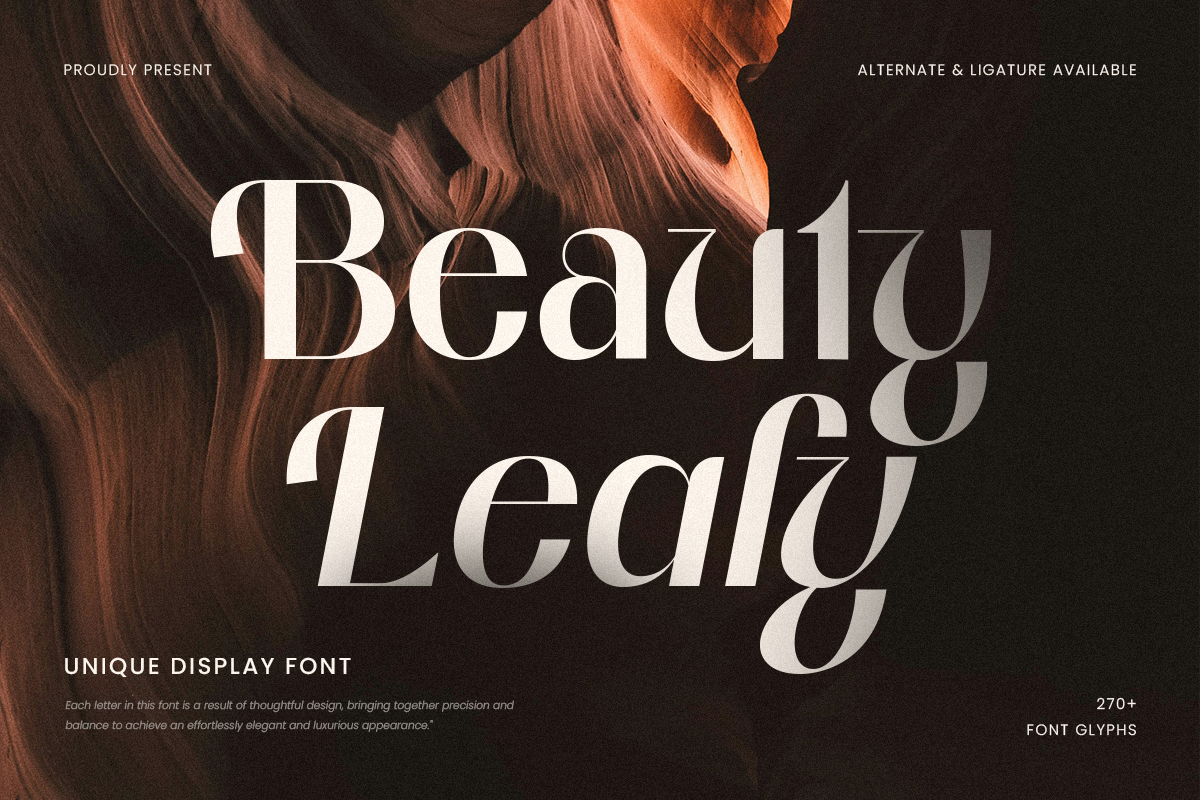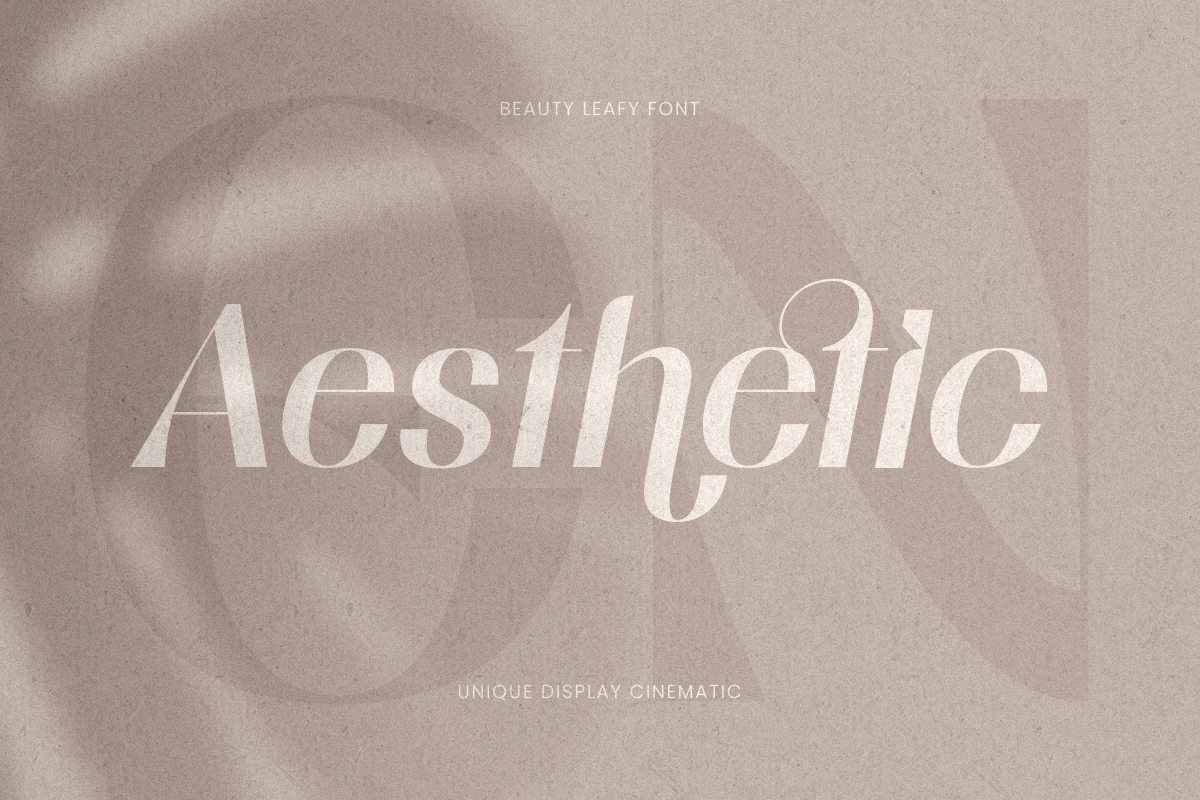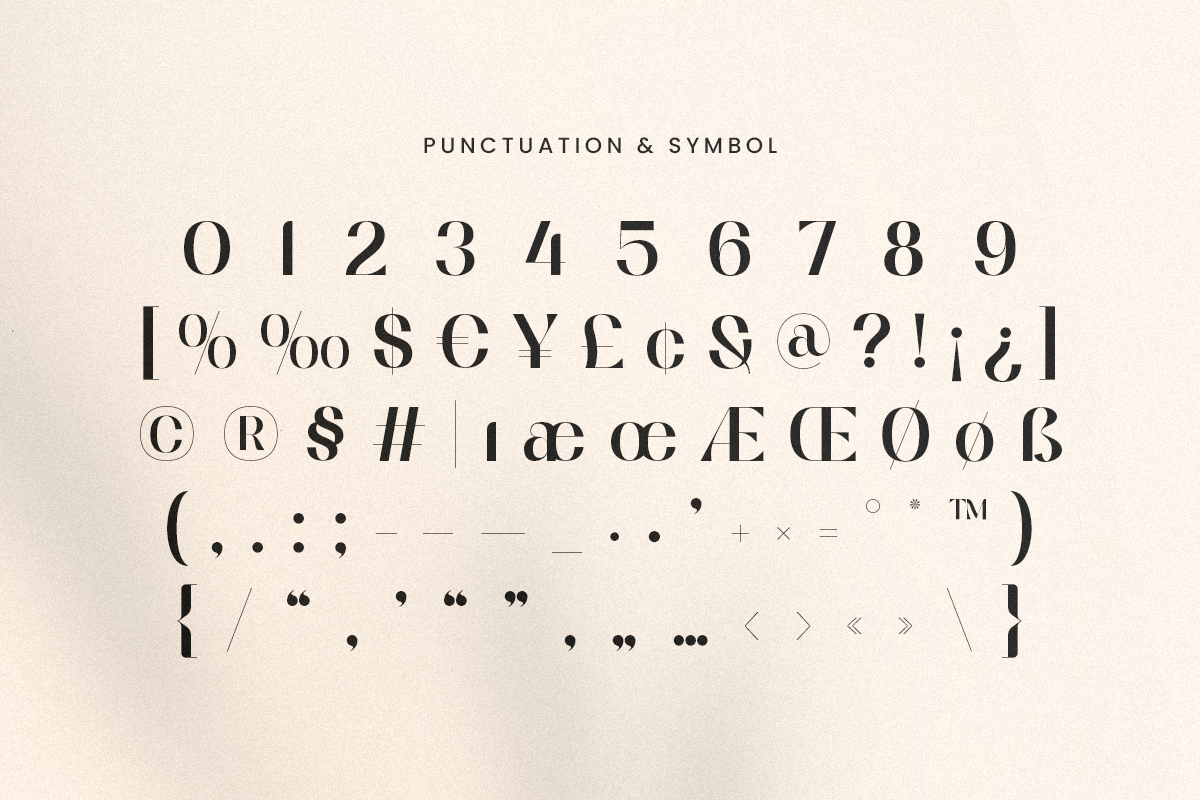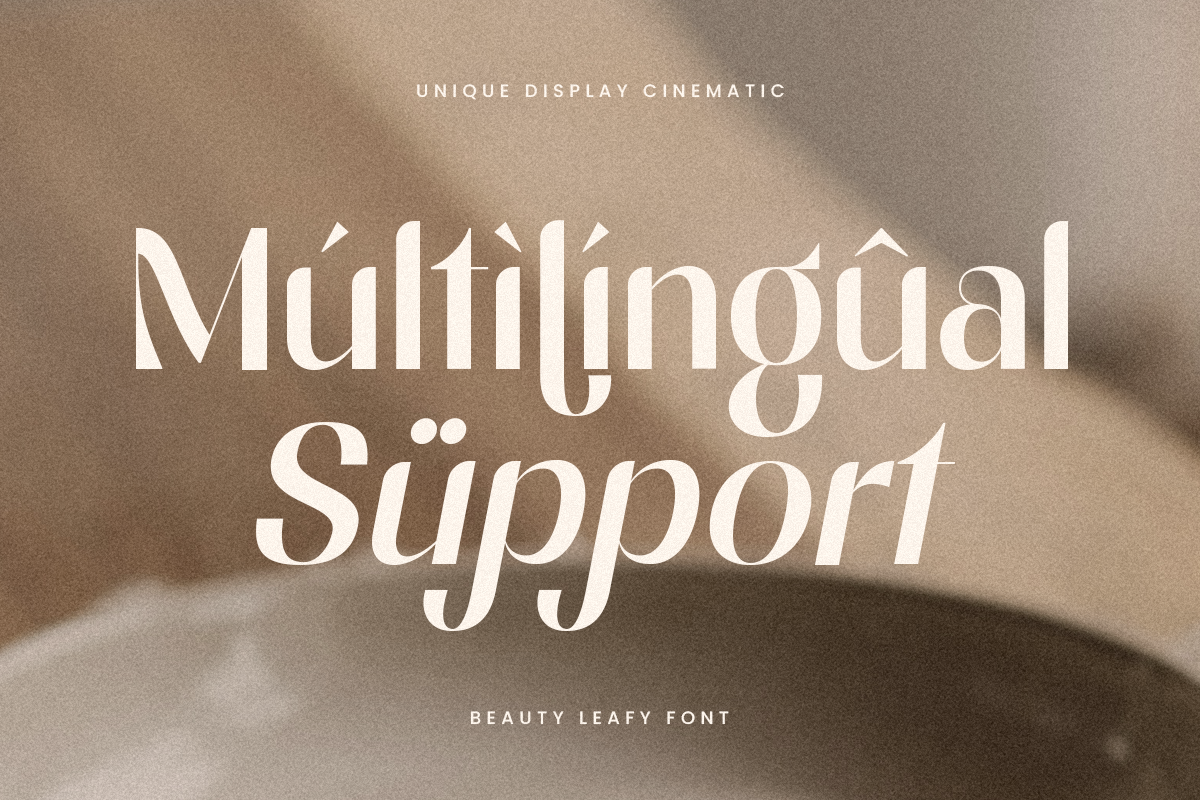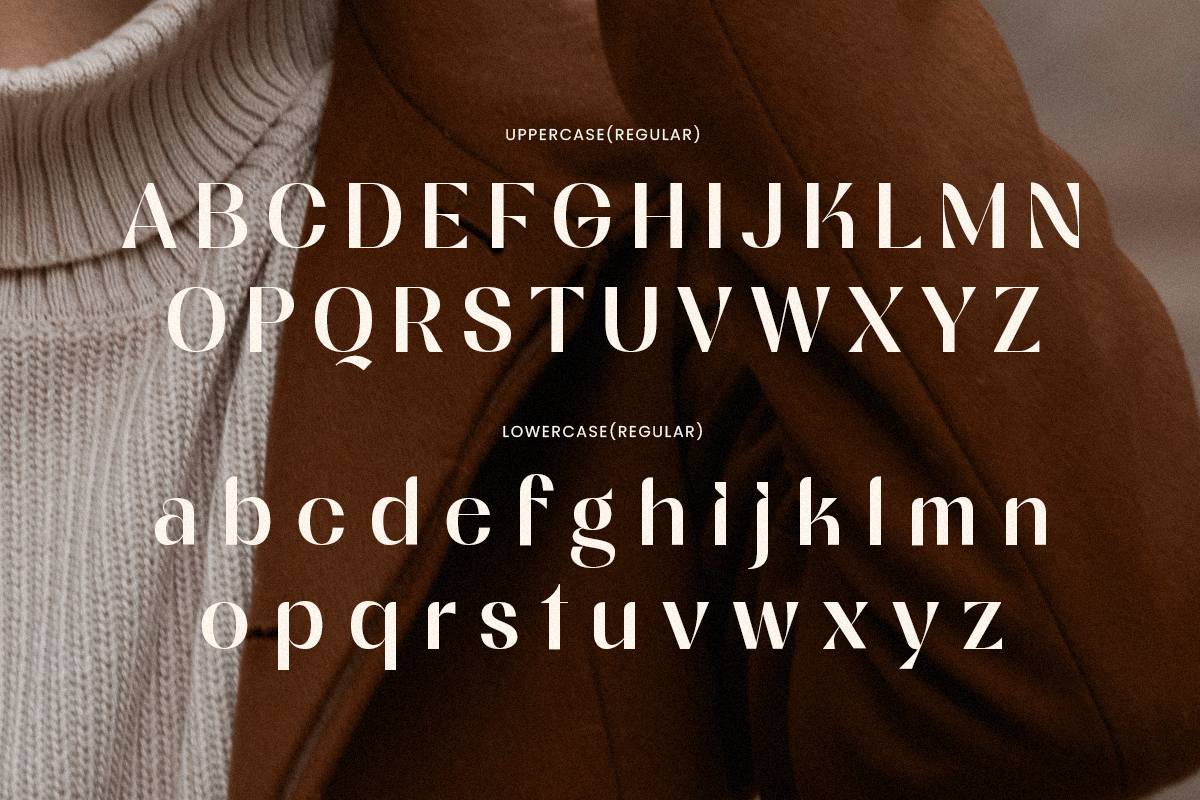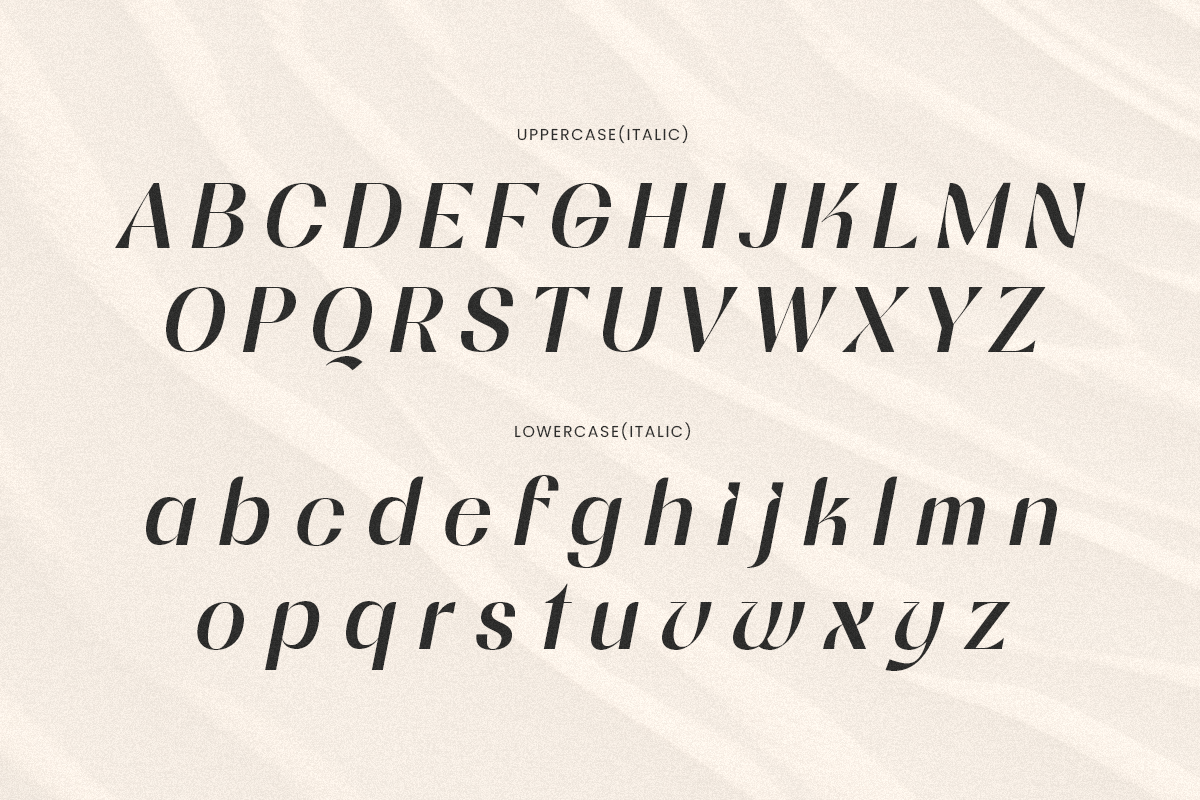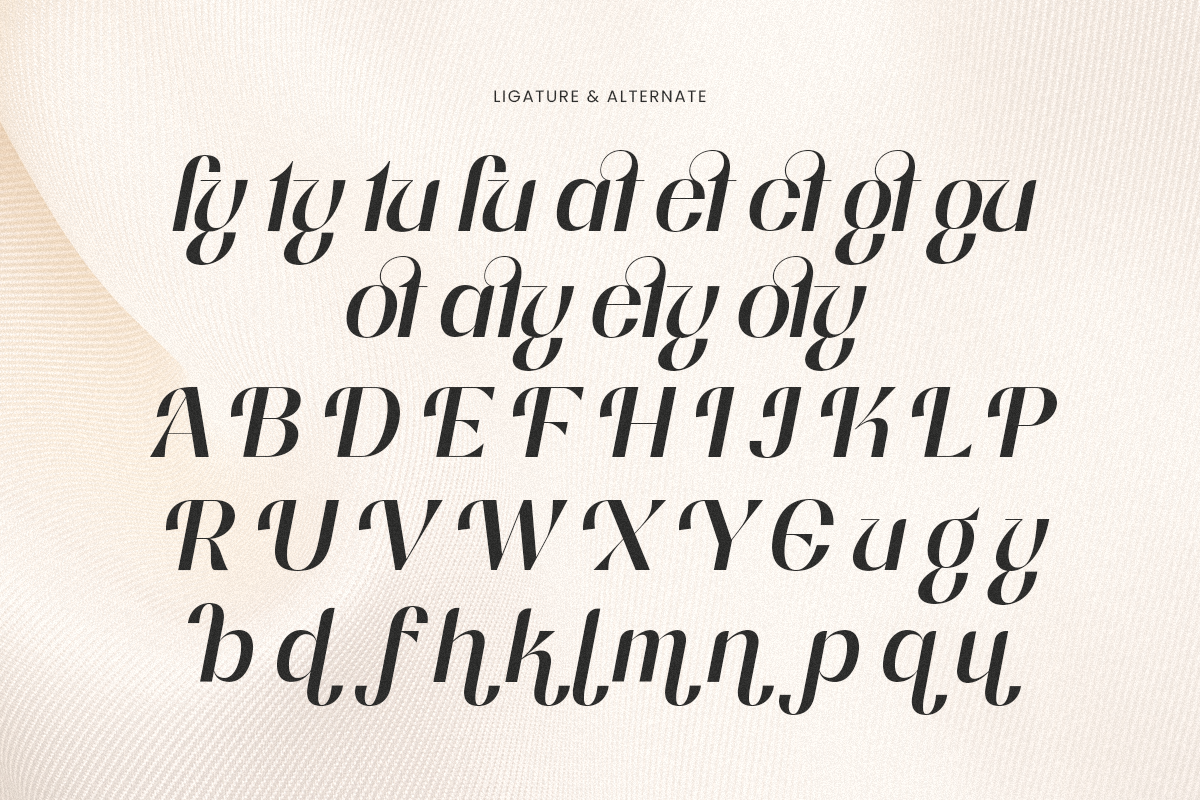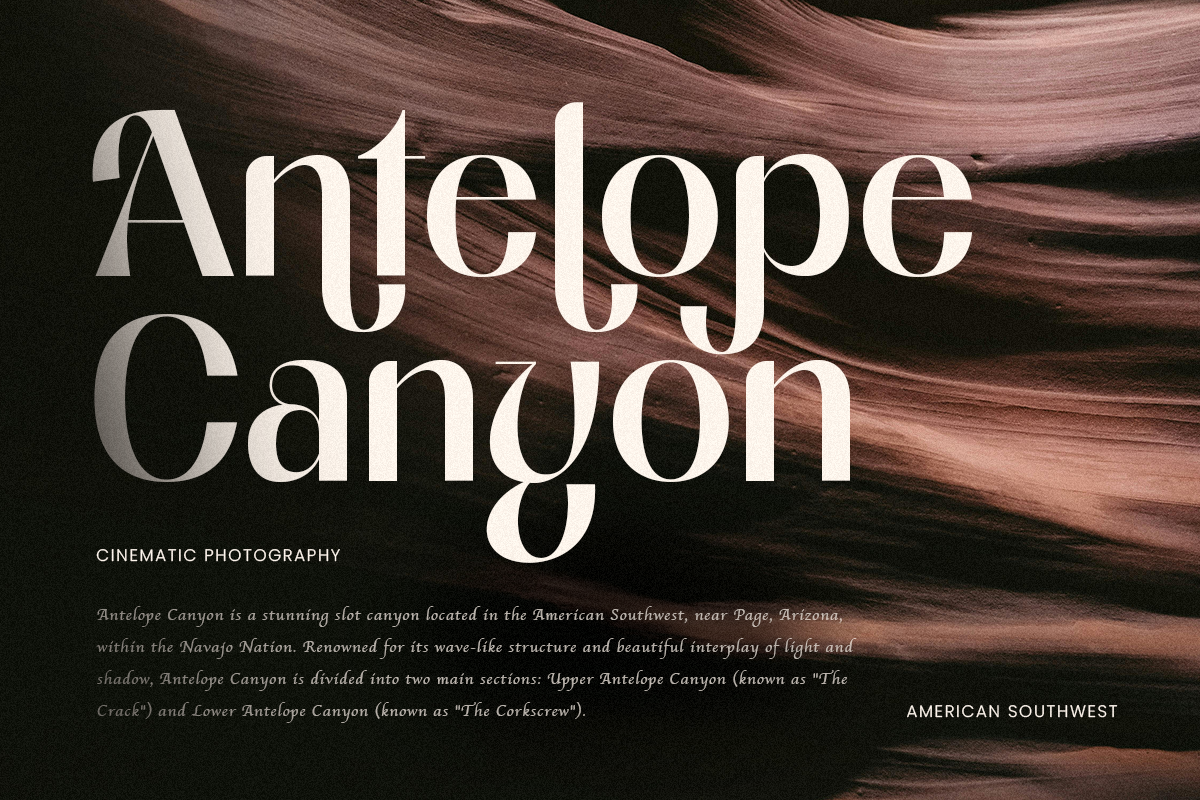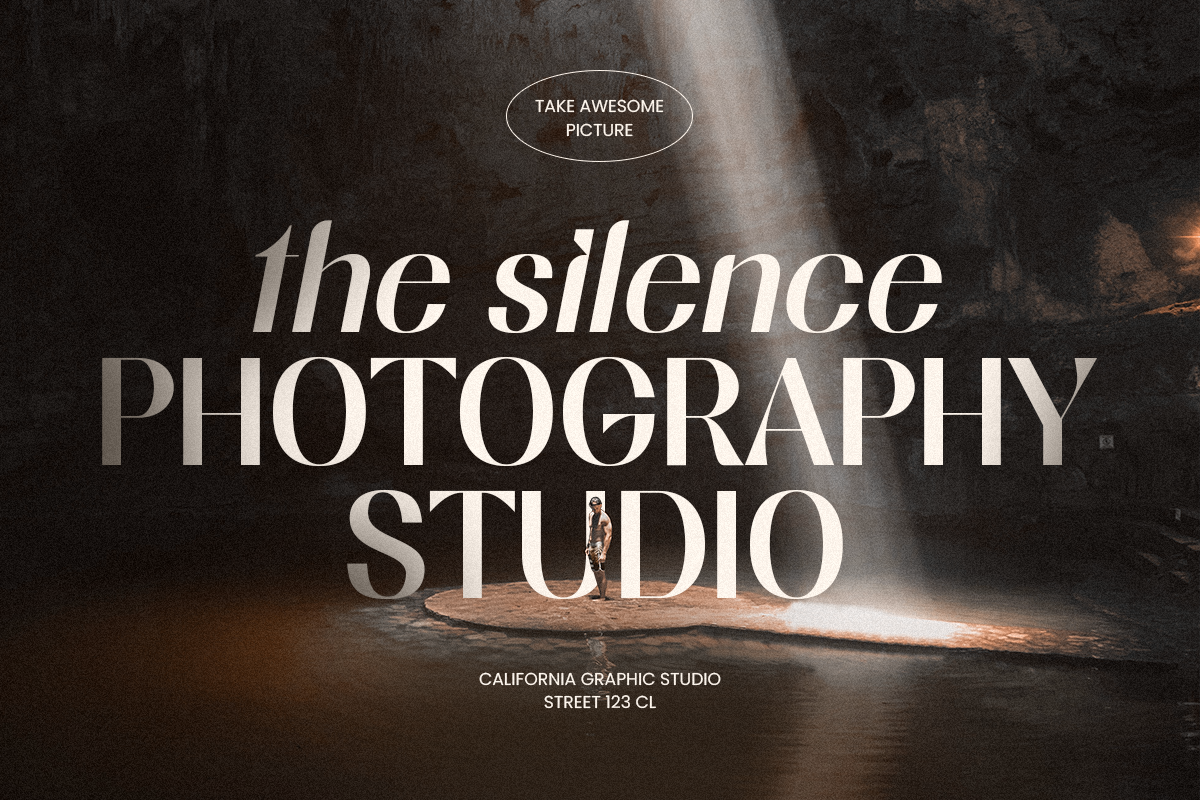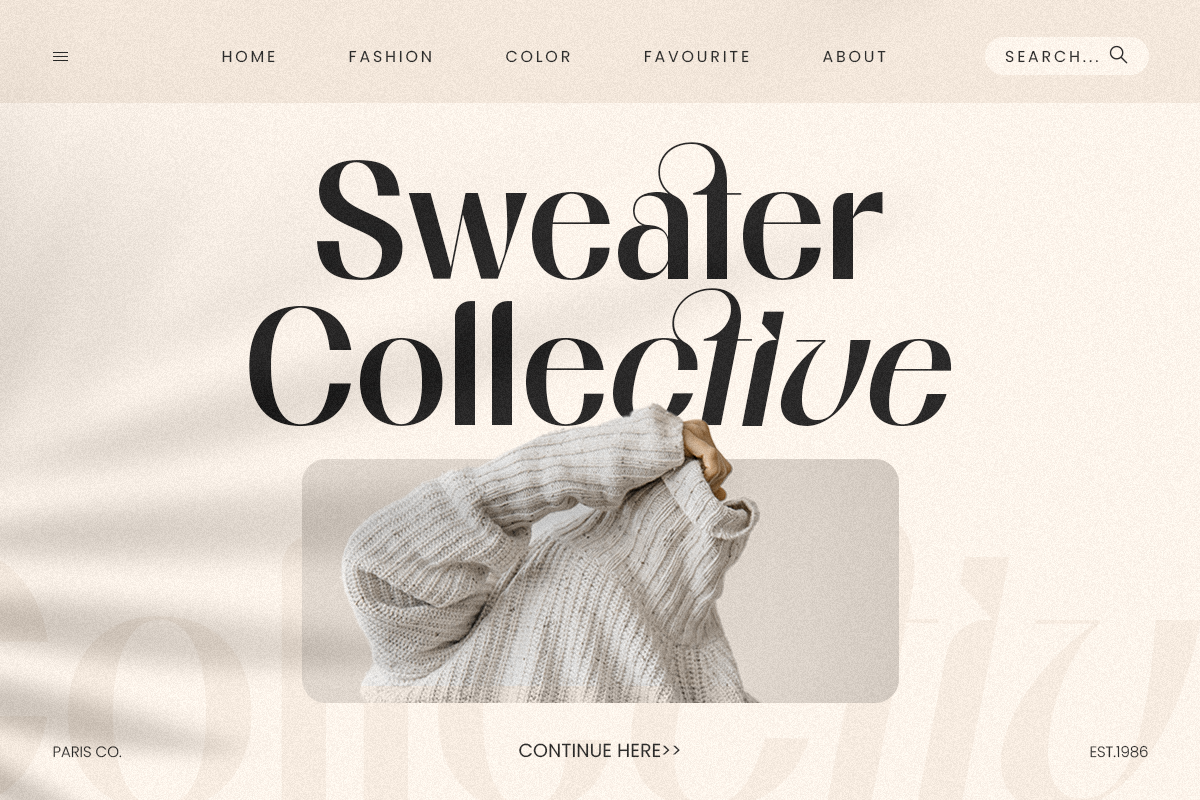
Beauty Leafy brings a fresh, unique design inspired by natural elegance. Its detailed and creative letterforms are ideal for making standout titles and branding.
Versatile for Various Design Needs
Whether you're designing for logos, posters, or social media, Beauty Leafy adapts beautifully. Its stylish charm enhances any project, adding a touch of sophistication and creativity.
Crafted for Elegant Creativity
This font combines artistic flair with modern versatility, making it a must-have for designers seeking a unique edge. Beauty Leafy is your tool to elevate design projects effortlessly.
Beauty Leafy - Unique Display Font Features:
• Ready with Regular & Italic Version
• Alternates & Ligature Characters Ready
• Punctuation, Number, and Symbol
• Uppercase and Lowercase
• Opentype Features
Multilingual Characters available for:
Afrikaans, Albanian, Asu, Basque, Bemba, Bena, Breton, Chiga, Cornish, Dutch, English, Estonian, Filipino, Finnish, Friulian, Galician, German, Gusii, Indonesian, Irish, Italian, Kabuverdianu, Kalenjin, Kinyarwanda, Luo, Luxembourgish, Luyia, Machame, Makhuwa-Meetto, Makonde, Malagasy, Manx, Morisyen, North Ndebele, Nyankole, Oromo, Portuguese, Quechua, Romansh, Rombo, Rundi, Rwa, Samburu, Sango, Sangu, Scottish Gaelic, Sena, Shambala, Shona, Soga, Somali, Spanish, Swahili, Swedish, Swiss.